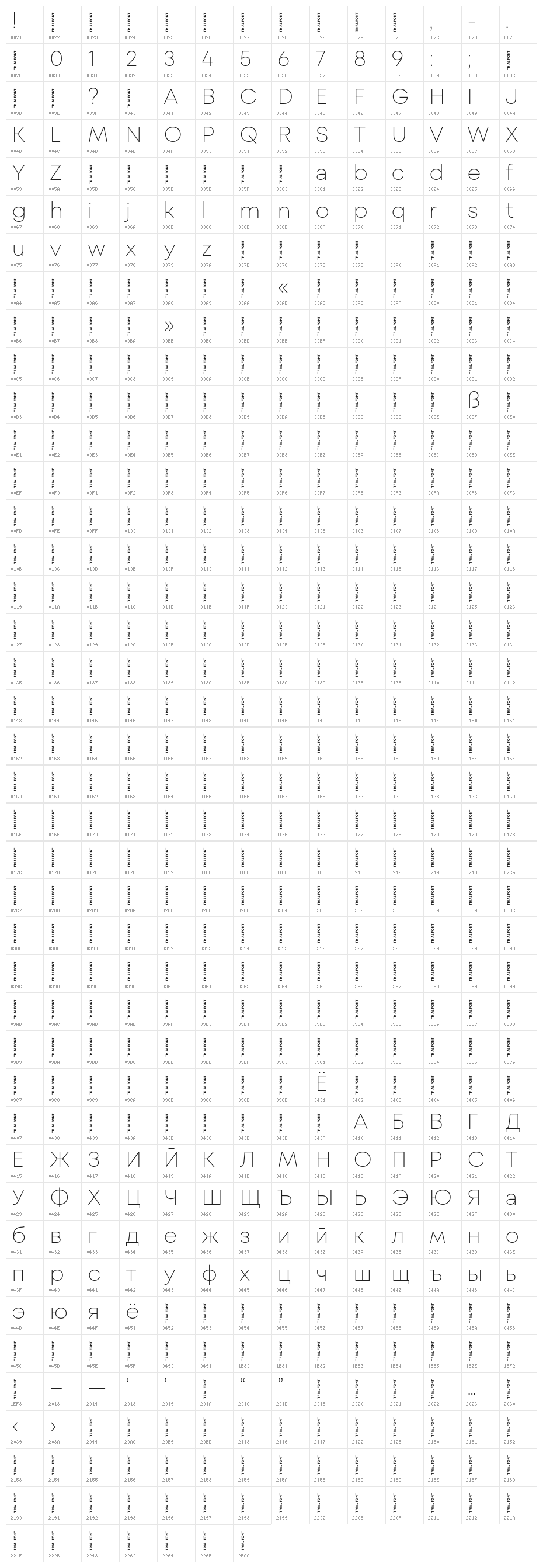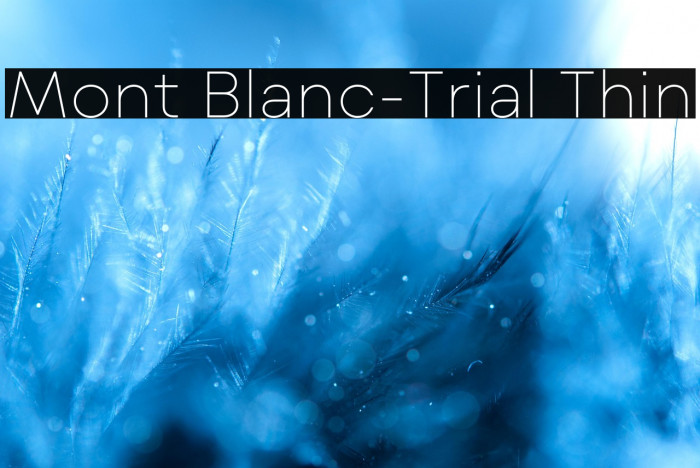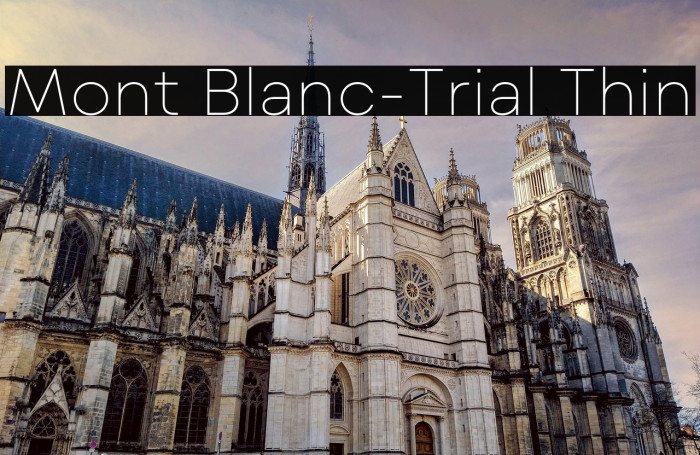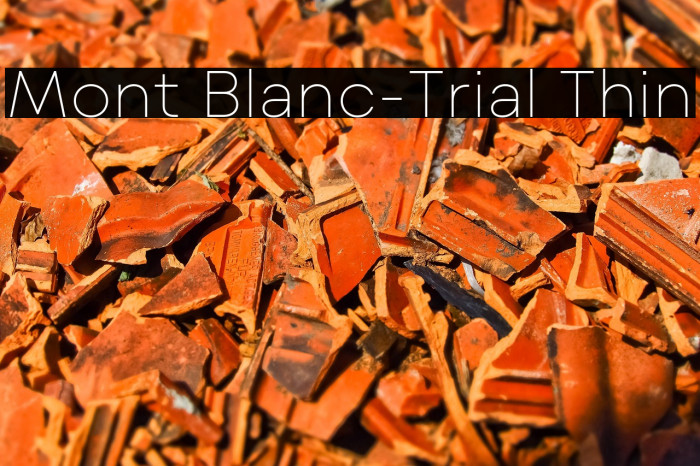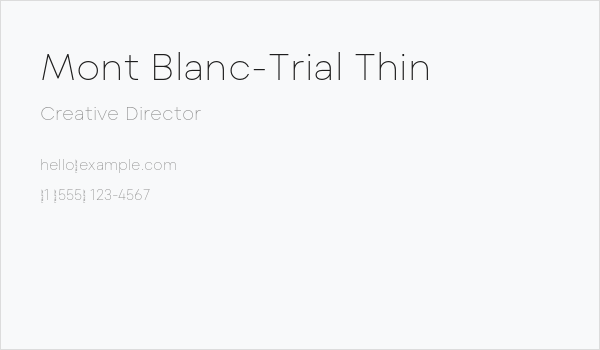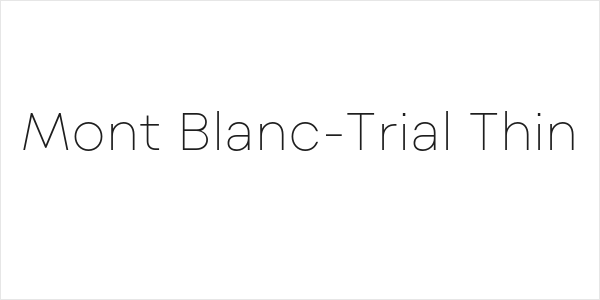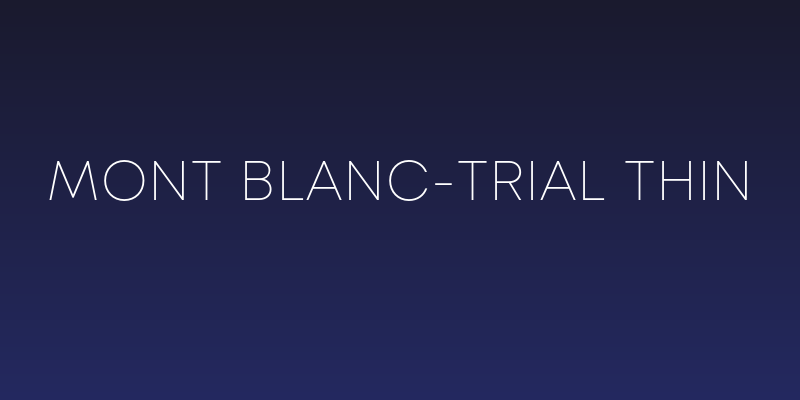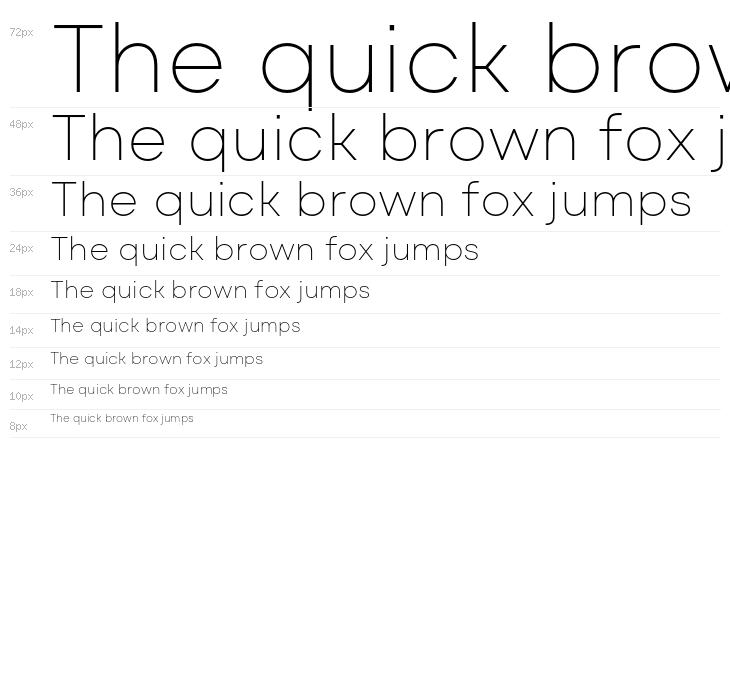
Mont Blanc-Trial Thin Font
Mont Blanc-Trial Thin Description
This font features a sleek, modern design with clean lines and a minimalist aesthetic. The characters are evenly spaced, providing a balanced and harmonious appearance. The uppercase and lowercase letters maintain a consistent style, with smooth curves and straight lines that enhance readability. The numerals are clear and distinct, making them suitable for various applications. The special characters are designed with the same attention to detail, ensuring they blend seamlessly with the rest of the font. Overall, this font exudes a contemporary feel, making it ideal for modern design projects.